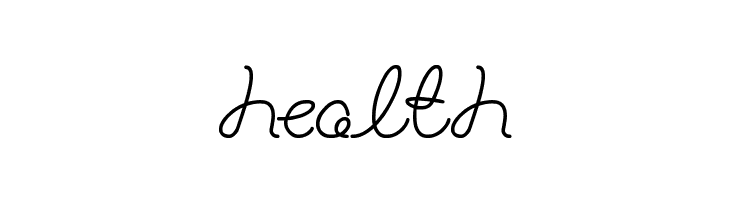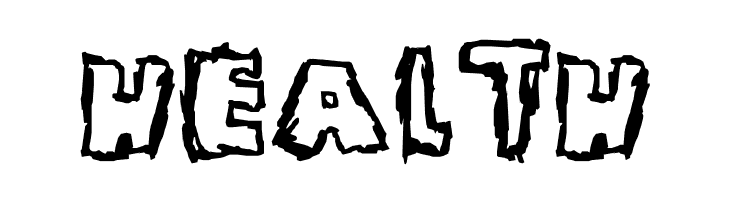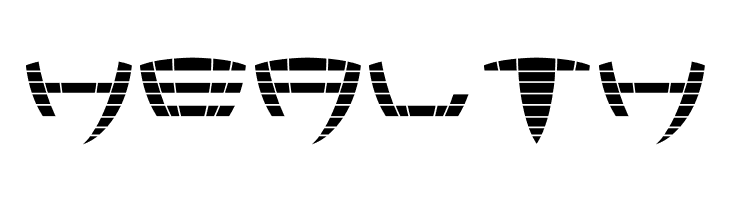
A decorative serif font with a medieval touch and modern elegance.
A rugged, textured font with a stone-carved appearance.
A flowing, cursive font with elegant loops and artistic flair.
A modern, geometric font with rounded elements and consistent stroke width.
A futuristic, segmented font with a digital and angular design.
A bold, graffiti-inspired font with dynamic curves and sharp angles.